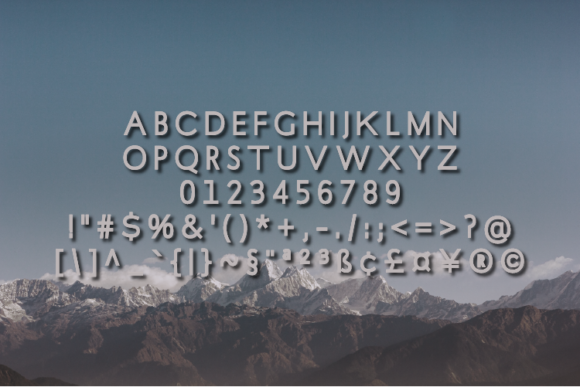
Hanzone Font: The Ultimate Sans Serif Font for Bold and Sophisticated Designs
In the world of typography, a good font can make all the difference in creating a lasting impression. For designers and crafters looking for a font that exudes confidence and sophistication, Hanzone Font is an excellent choice. This masterfully designed sans serif font features chunky and extended characters that are perfect for logos, branding, packaging design, and more.
What Makes Hanzone Font Stand Out?
Hanzone Font is a bold and eye-catching font that is sure to grab attention. Its chunky and extended characters give it a unique and distinctive look that sets it apart from other sans serif fonts. The font’s boldness makes it perfect for headlines, titles, and logos, while its sophistication ensures that it will look great in any design.
Key Features of Hanzone Font
- Bold and Sophisticated: Hanzone Font features a bold and sophisticated design that is perfect for creating stunning visuals.
- Chunky and Extended Characters: The font’s chunky and extended characters make it perfect for logos, branding, packaging design, and more.
- Sans Serif: Hanzone Font is a sans serif font, making it clean and modern.
- Versatile: The font is versatile and can be used in a variety of design projects, from print to digital.
Why Designers and Crafters Love Hanzone Font
Designers and crafters love Hanzone Font for its unique and distinctive look. The font’s boldness and sophistication make it perfect for creating stunning visuals that grab attention. Additionally, the font’s versatility makes it suitable for a wide range of design projects, from logos and branding to packaging design and more.
How to Use Hanzone Font in Your Designs
Using Hanzone Font in your designs is easy. Here are a few tips to get you started:
- Use it for Headlines and Titles: Hanzone Font is perfect for headlines and titles, where its boldness and sophistication can really shine.
- Pair it with Other Fonts: Hanzone Font can be paired with other fonts to create a unique and interesting look.
- Experiment with Different Sizes: The font’s chunky and extended characters look great in large sizes, but can also be used in smaller sizes for a more subtle look.
Benefits of Using Hanzone Font
There are many benefits to using Hanzone Font in your designs. Here are a few:
- Instant Recognition: The font’s boldness and sophistication make it instantly recognizable.
- Professional Look: Hanzone Font gives your designs a professional and polished look.
- Versatility: The font’s versatility makes it suitable for a wide range of design projects.
In conclusion, Hanzone Font is a must-have for designers and crafters looking for a bold and sophisticated sans serif font. Its chunky and extended characters make it perfect for logos, branding, packaging design, and more. With its versatility and professional look, Hanzone Font is sure to become a staple in your design toolkit.